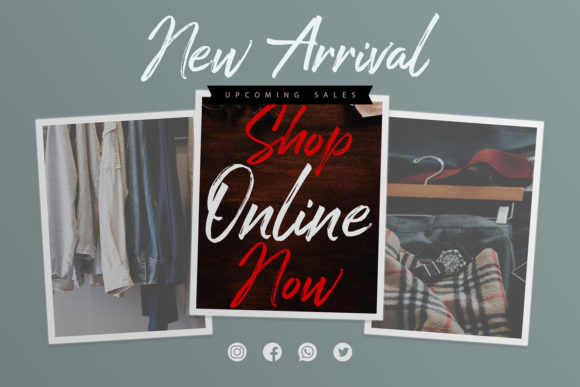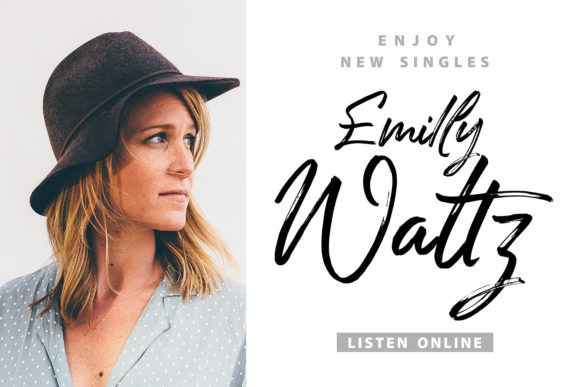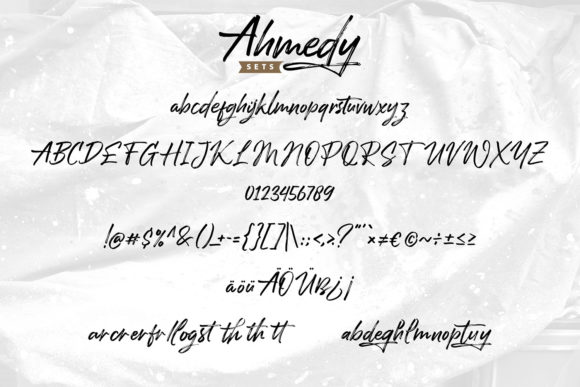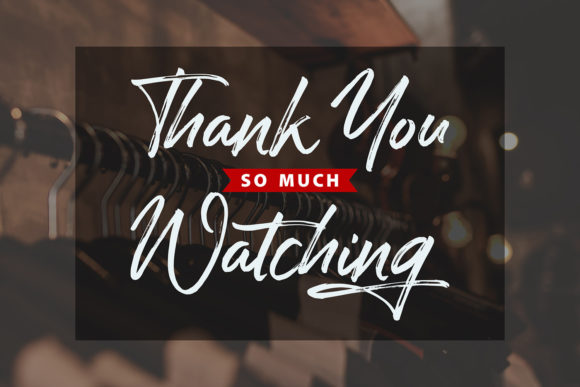
Introducing Ahmedy: The Rustic Brush Handwriting Script Font
Are you a designer or crafter looking for a unique and beautiful font to elevate your creative projects? Look no further than Ahmedy, a modern handwritten script font that is sure to impress. With its natural and effortless flow, Ahmedy is perfect for a wide range of applications, from wedding invitations and greeting cards to branding materials, business cards, quotes, posters, and more.
A Font that Flows like Handwriting
Ahmedy is designed to mimic the natural flow of handwriting, with a rustic brush script style that gives it a charming and organic feel. The font’s irregularities and imperfections add to its character, making it perfect for designs that require a personal touch. Whether you’re creating a romantic wedding invitation or a bold poster, Ahmedy is sure to bring a touch of elegance and sophistication to your work.
One of the best things about Ahmedy is its versatility. This font can be used for a wide range of creative projects, including:
- Branding materials, such as logos and packaging
- Quotes and posters
With Ahmedy, you can add a touch of personality and style to any design, making it stand out from the crowd.
Why Choose Ahmedy?
So why choose Ahmedy over other fonts? Here are just a few reasons:
- Unique and distinctive: Ahmedy has a one-of-a-kind style that will set your designs apart from others.
- Elegant and sophisticated: The font’s natural flow and rustic brush script style give it a touch of elegance and sophistication.
- Versatile: Ahmedy can be used for a wide range of creative projects, from wedding invitations to posters and social media graphics.
- Easy to read: Despite its handwritten style, Ahmedy is easy to read and understand, making it perfect for body text and captions.
Tips for Using Ahmedy
To get the most out of Ahmedy, here are a few tips:
- Use it with contrasting fonts: Pair Ahmedy with a clean and simple font to create visual interest and contrast.
- Experiment with colors: Ahmedy looks great in a range of colors, from bold and bright to soft and pastel.
- Add texture and patterns: Consider adding texture and patterns to your design to give it a more organic and handmade feel.
Ahmedy is a beautiful and versatile font that is sure to elevate your creative projects. With its natural flow and rustic brush script style, it’s perfect for designers and crafters who want to add a touch of elegance and sophistication to their work. Whether you’re creating wedding invitations, branding materials, or social media graphics, Ahmedy is a great choice. So why not give it a try and see the difference it can make?